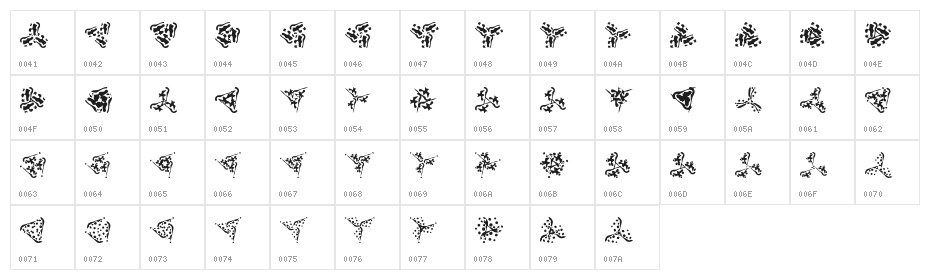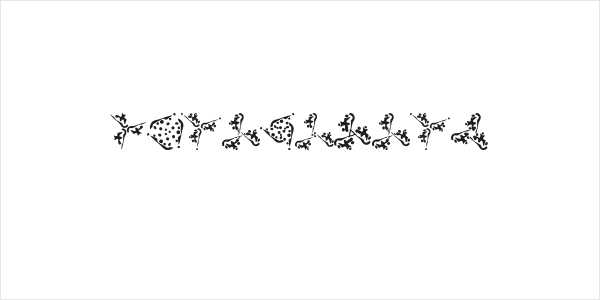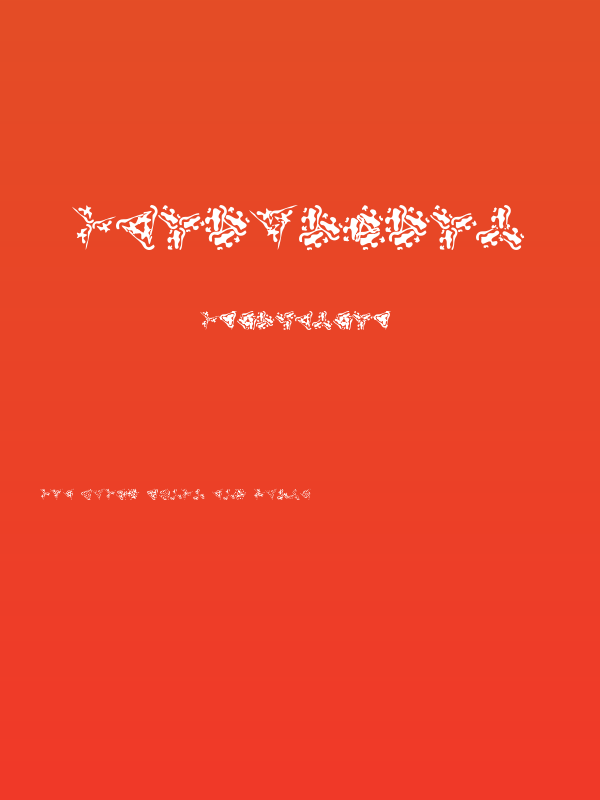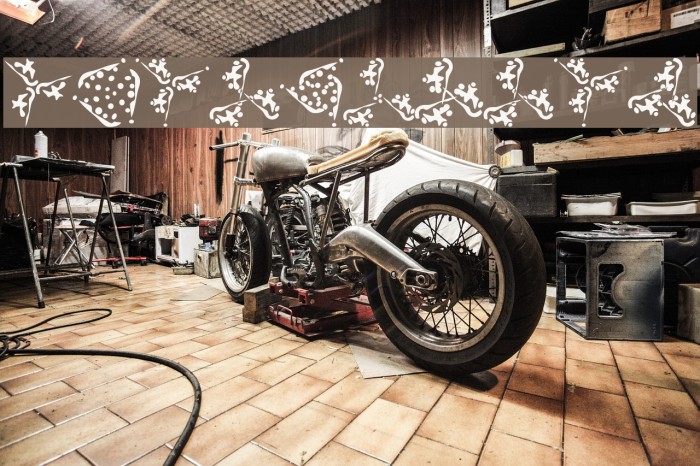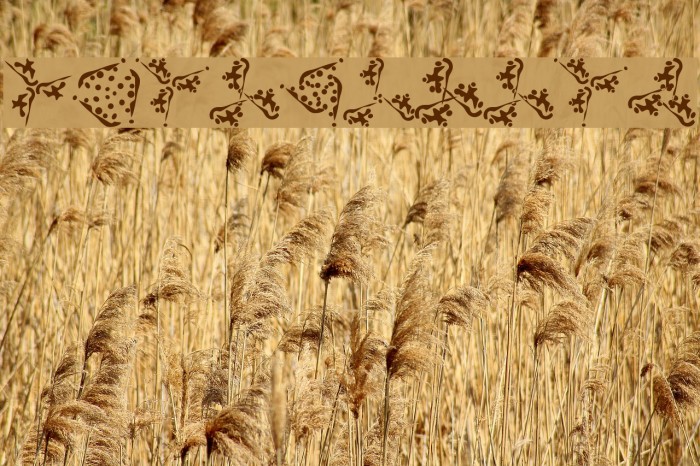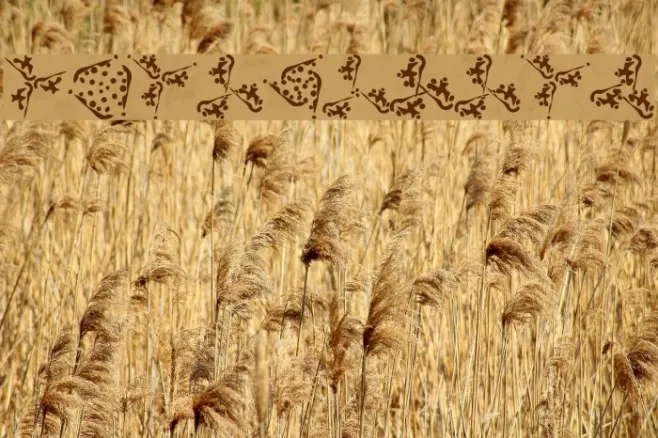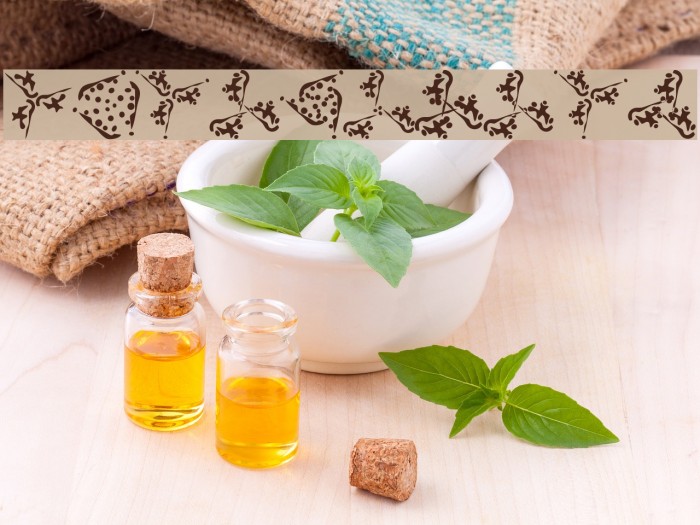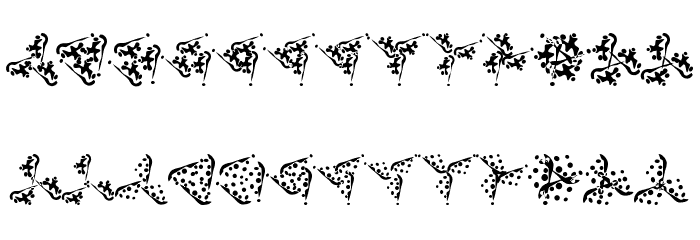
Trinsomnia Font
Trinsomnia Description
This font is a highly decorative and abstract design, characterized by intricate patterns and shapes that form each letter. The characters are composed of various geometric elements, including dots and lines, creating a complex and artistic appearance. The overall look is reminiscent of abstract art or a digital mosaic, making it stand out with its unique and unconventional style. The font lacks uniformity in stroke thickness, contributing to its artistic flair. It is not suitable for body text due to its complexity but could be used effectively in creative projects where a bold visual statement is desired.
| Proposed Projects | Ideal for art projects, posters, album covers, or any creative work requiring a bold, artistic touch. |